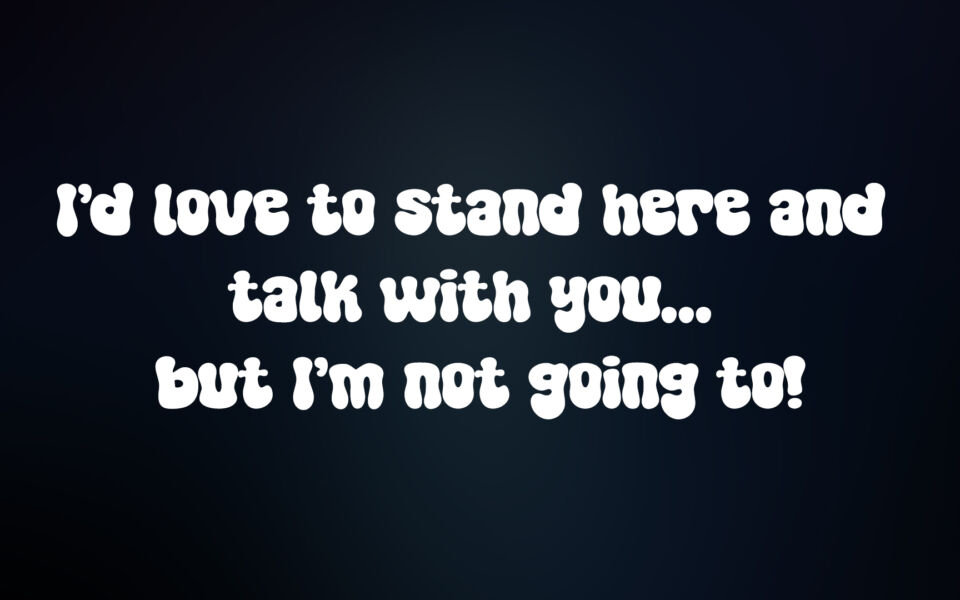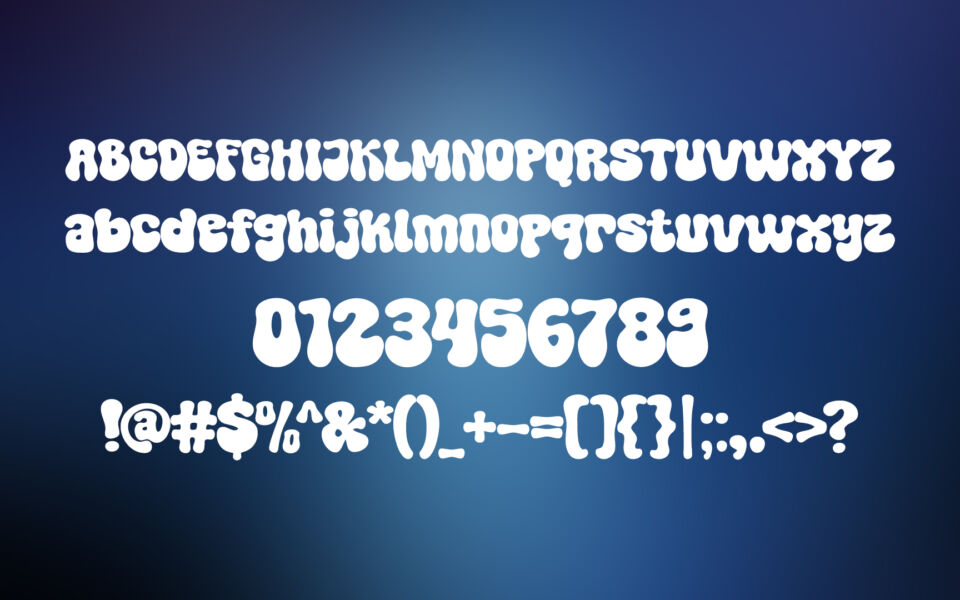
Super Brave Font
The “Super Brave” font is a vibrant, free typeface with a bold, rounded design that exudes energy and fun.
Ideal for posters, logos,  socialor media graphics, this font evokes a retro, psychedelic vibe with a modern twist. Perfect for creative projects needing a courageous, eye-catching aesthetic, Super Brave showcases a carefree spirit, making it a standout choice for designers.